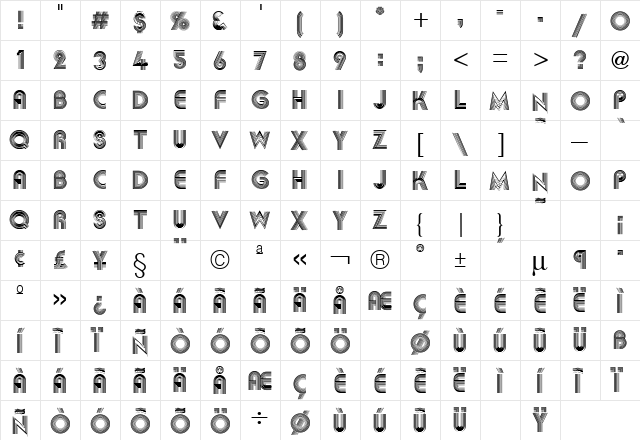
Aki Lines Regular
Design Context for Aki Lines Typeface
Aki Lines is a composed and adaptable typeface that performs quietly and consistently across a wide range of design contexts.